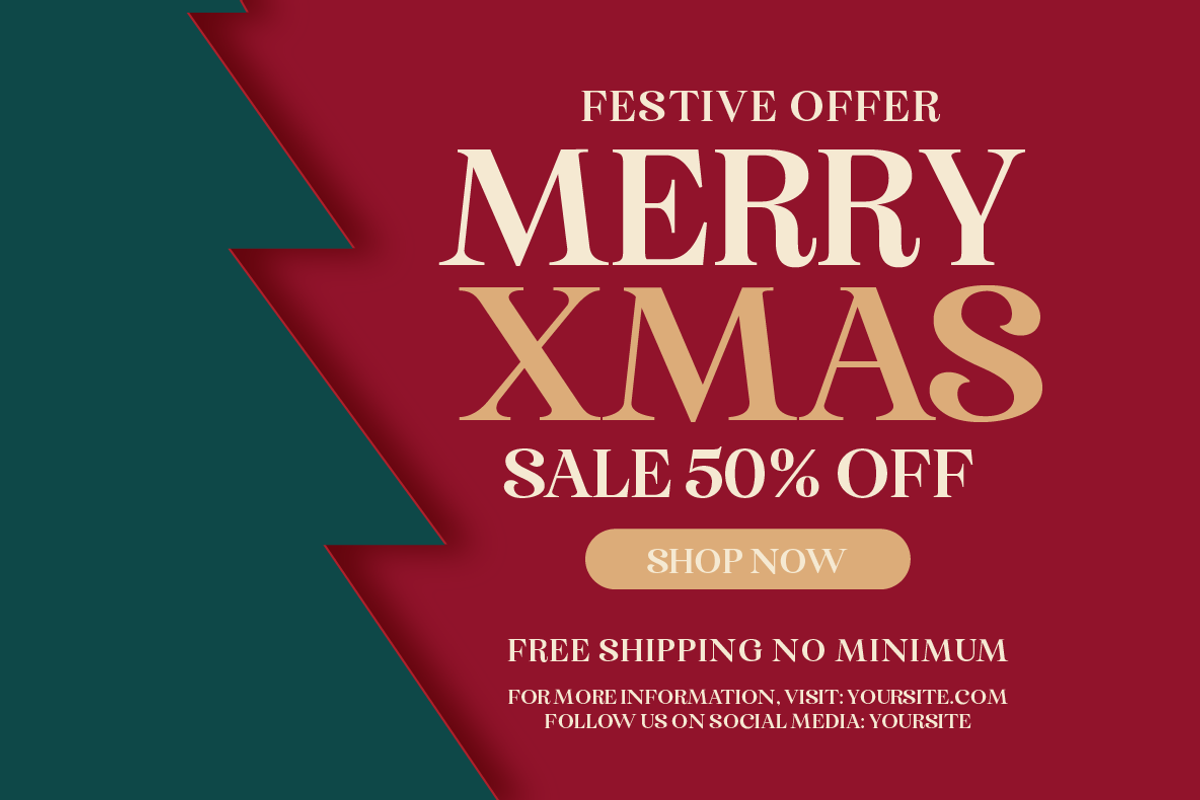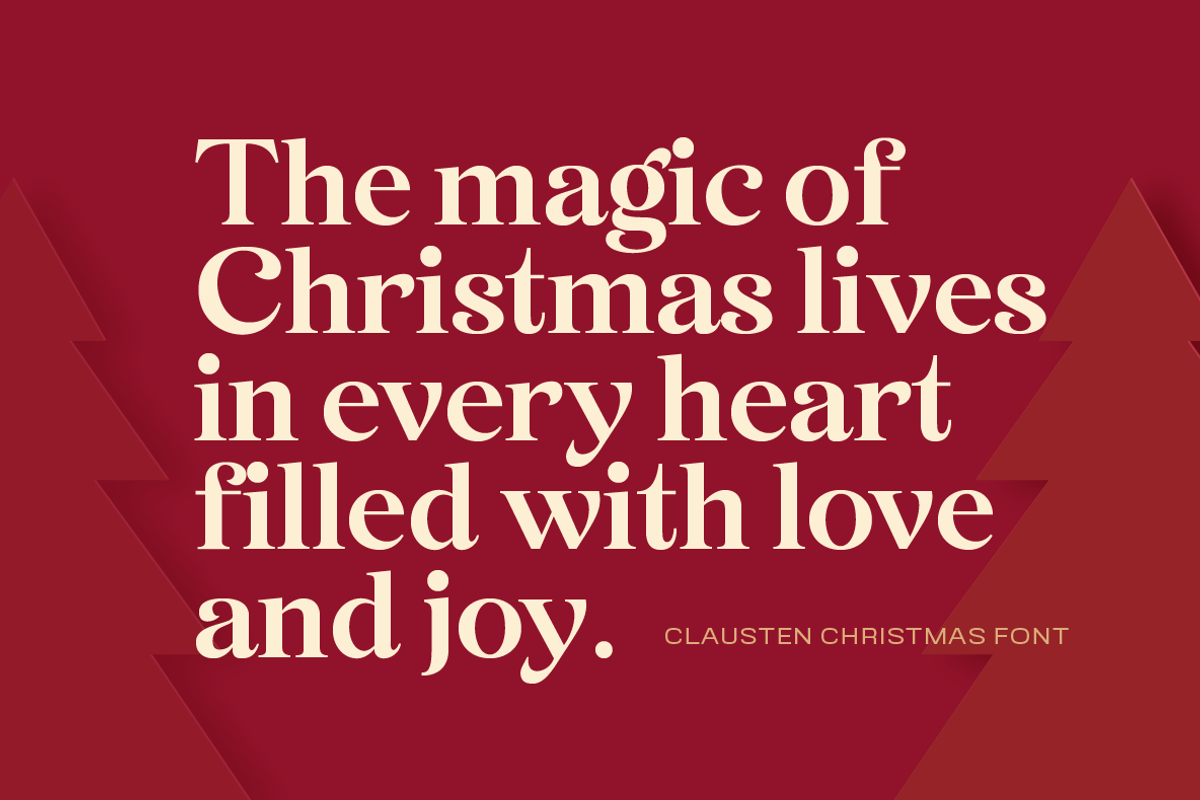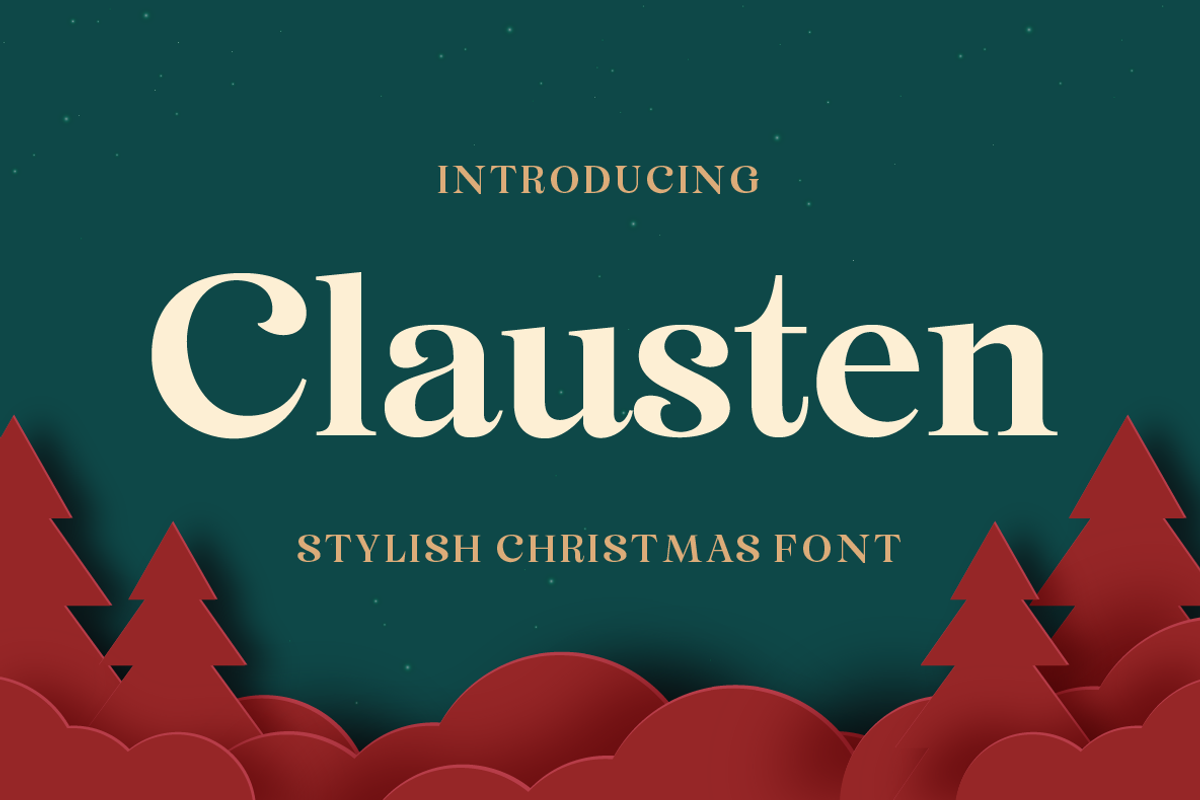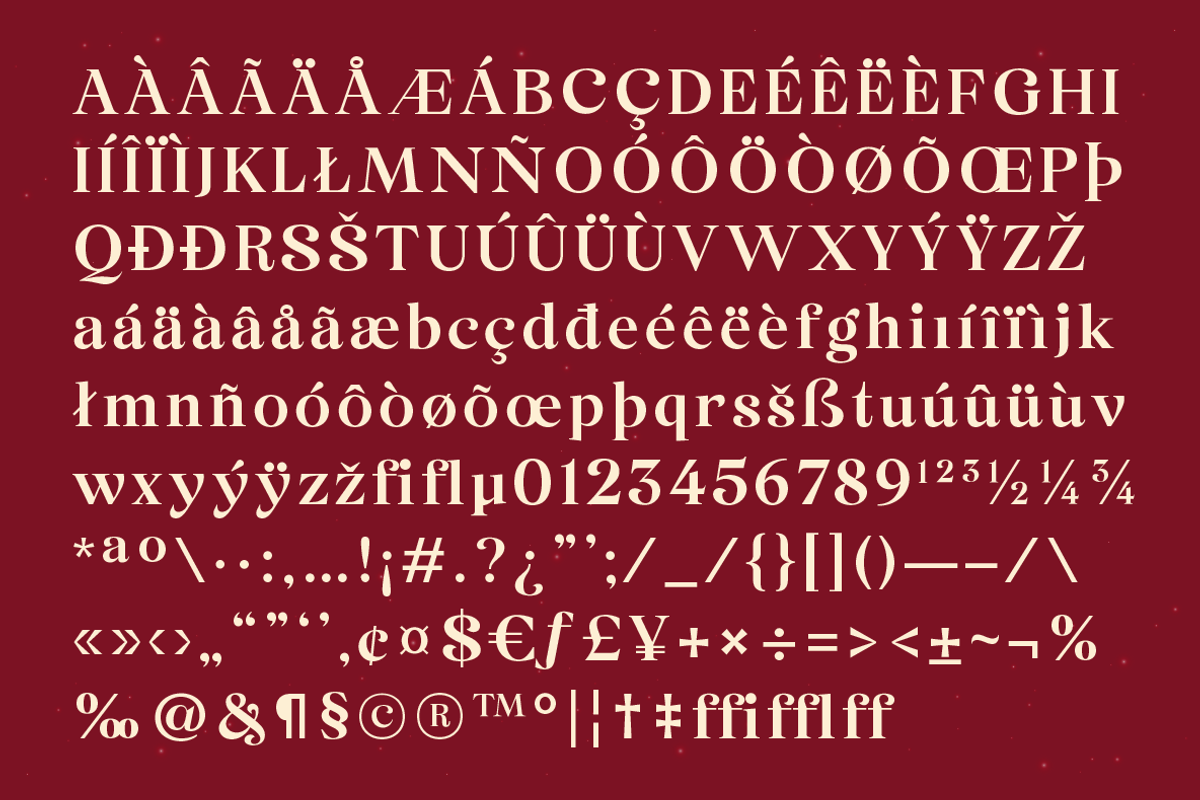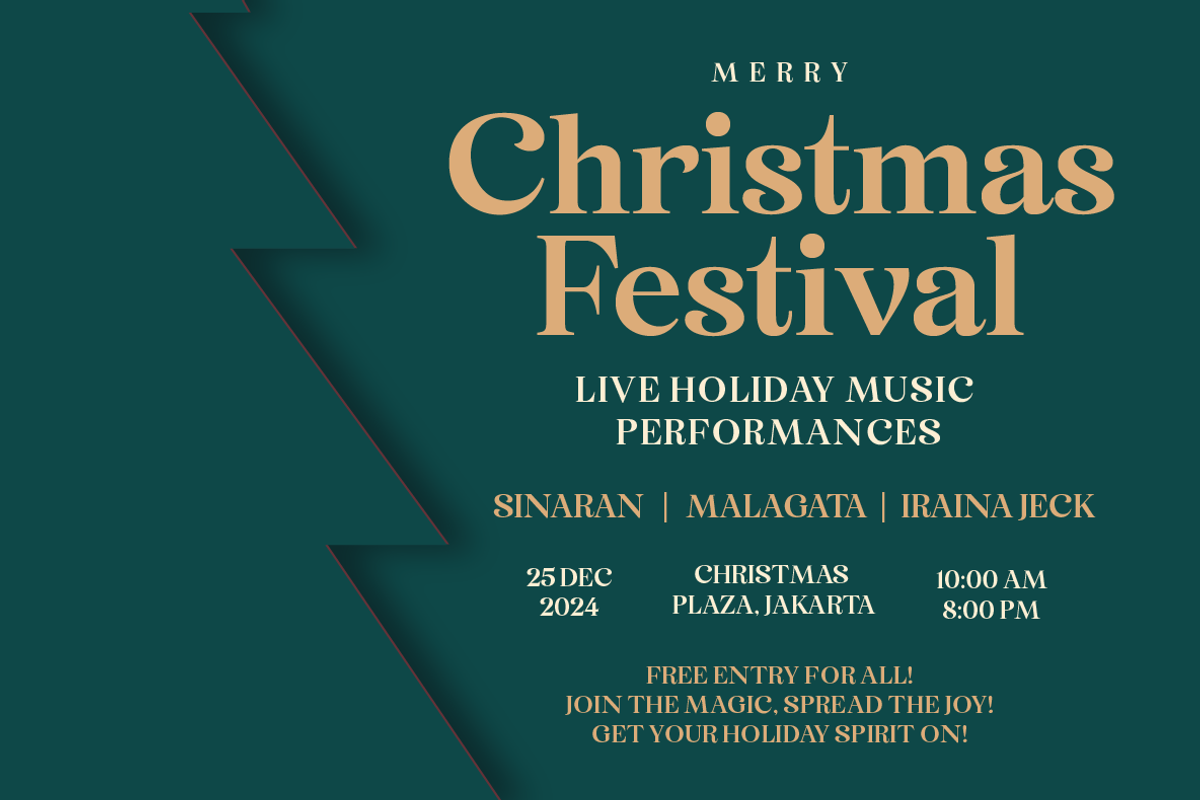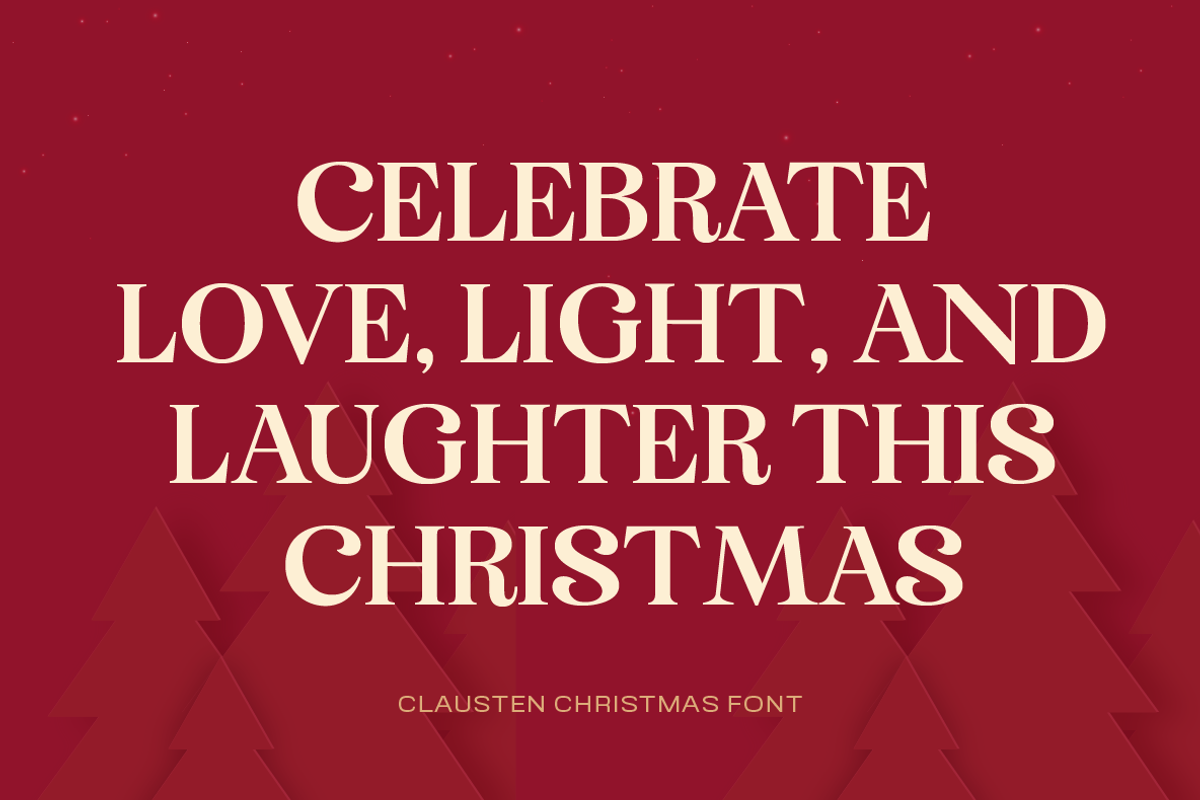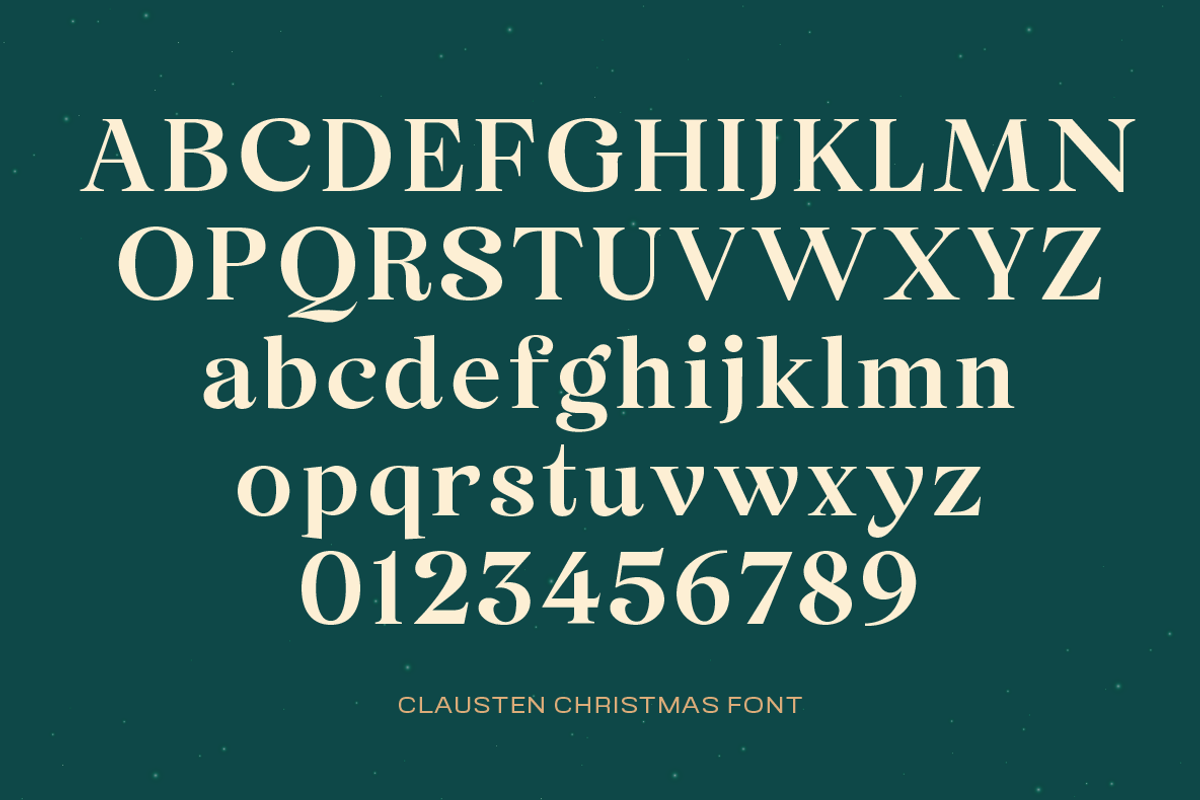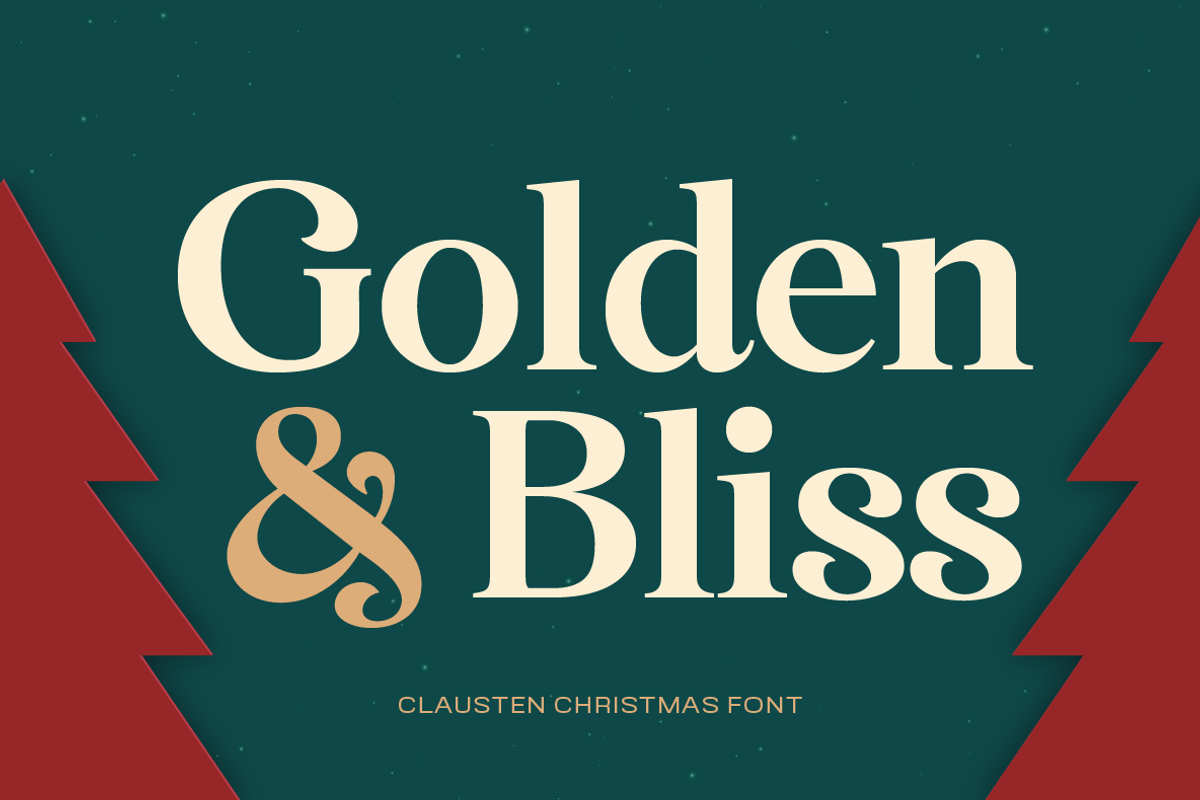
Clausten - Stylish Christmas Font
Celebrate the holiday season with Clausten, a sophisticated serif font designed to bring elegance and festive charm to your Christmas projects. With its stylish curves and timeless appeal, Clausten is perfect for creating luxurious holiday cards, invitations, seasonal branding, and decorative prints.
Whether you're working on a winter campaign or festive packaging, Clausten’s refined design will elevate any project with a touch of class and Christmas spirit.
- Elegant serif with a festive twist
- Perfect for holiday cards, invitations, and branding
- Great readability in both print and digital formats
- Includes multilingual support
- Ideal for Christmas-themed designs and winter campaigns
Bring the magic of Christmas to your designs with Clausten – the perfect stylish Christmas font for all your holiday needs.